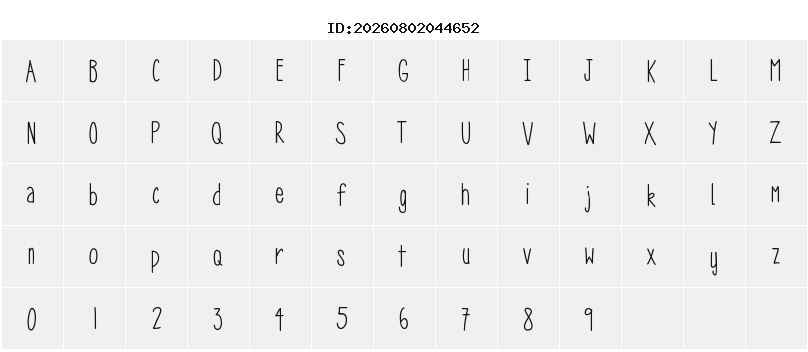
MRF Fields of Wildflowers Preview
• Font Name: MRF Fields of Wildflowers
• Designer: Sabrina Schleiger
About MRF Fields of Wildflowers.ttf
MRF Fields of Wildflowers.ttf is a modern, elegant sans-serif font designed for ultimate readability and visual harmony. Perfect for branding, headlines, web design, and print materials.